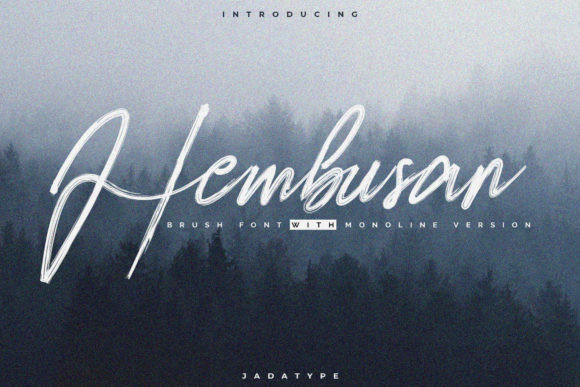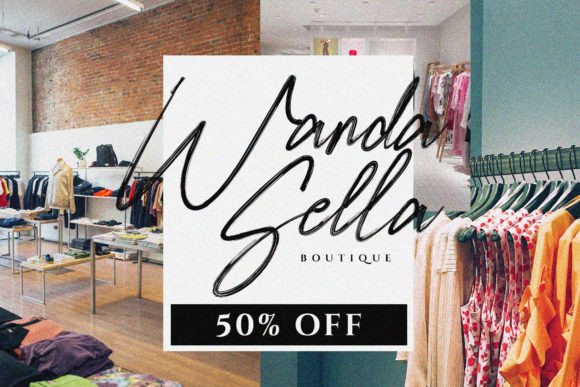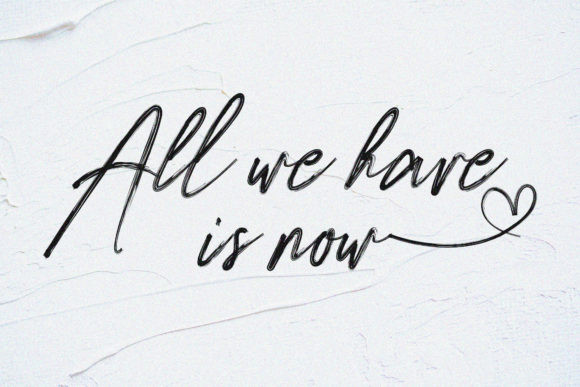
Hembusan Font
Hembusan is a relaxed, flowing and brushed handwritten font. This versatile script font has a wide spectrum of applications ranging from greeting cards to headlines and is guaranteed to add a modern feel to your next project.